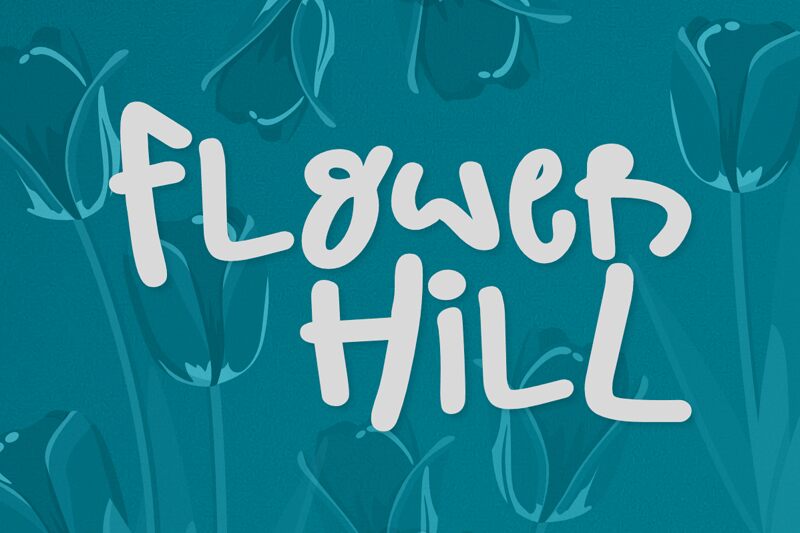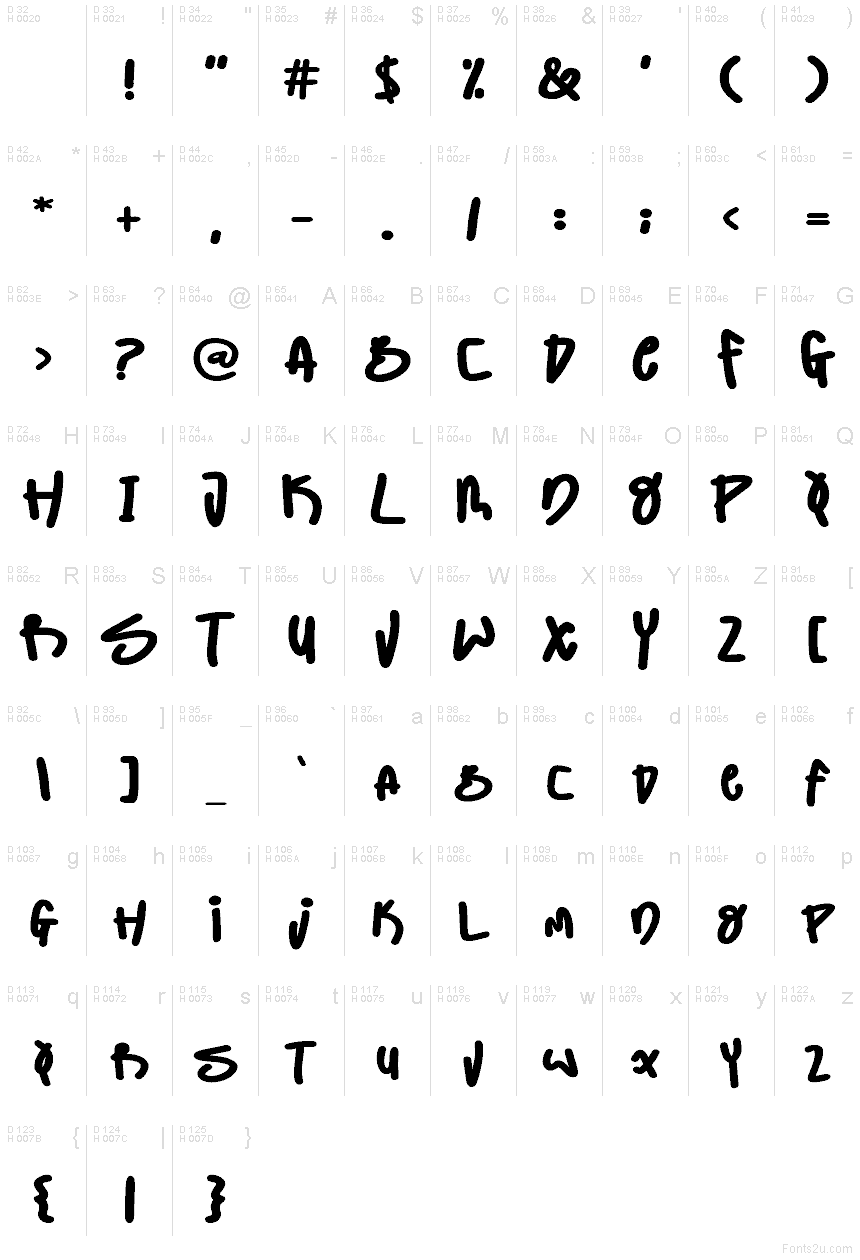
Flower Hill font by Olivetype is a free handwritten font that brings a chunky, marker-ink warmth to anything it touches. Its rounded strokes, bouncy rhythm, and fat loops feel like notes scrawled on a craft table-casual, friendly, and wonderfully human. Letters cuddle close without crowding, giving headlines a soft punch while staying easy to read at smaller sizes.
Using Flower Hill, you’ll get joyful energy for kids’ book covers, classroom printables, birthday invites, sticker sheets, playful packaging, DIY brand logos, and social posts. The steady weight makes color fills and outlines pop, and its upbeat pacing keeps lines lively, not messy. Pair this free font with a clean geometric sans for body copy, and let Flower Hill carry the headline at medium-large sizes.